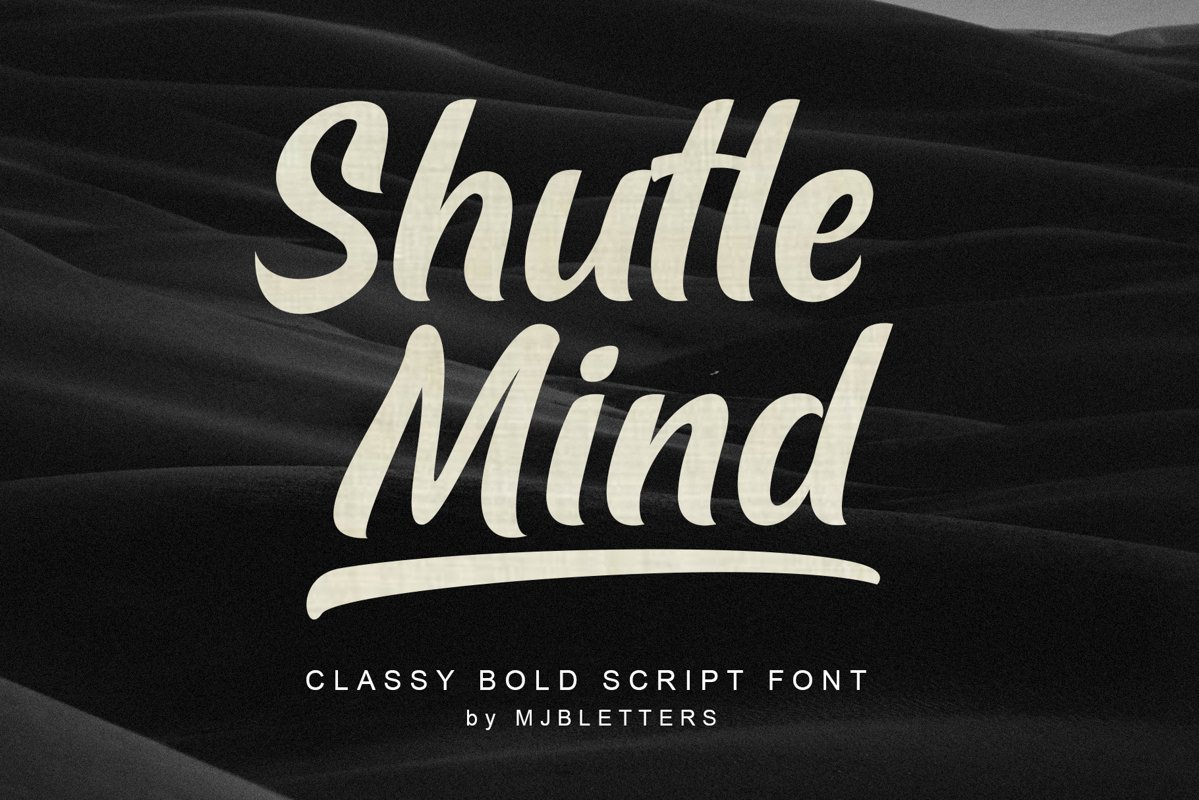
Shutle Mind - Classy Bold Script
'Shutle Mind' is a classic bold script font that has a strong and clean character so that it will give a clean and manly impression. This font can be used in various needs such as logos, posters, business cards, menu designs, quotes, advertisements, packaging, branding, t-shirt designs and others.What's Included?